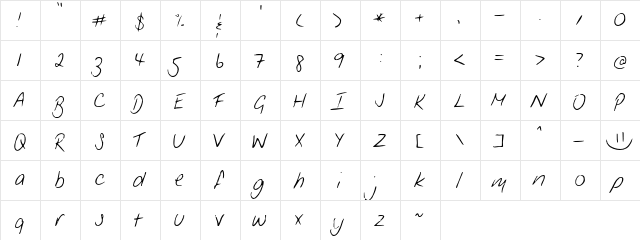
FG Jenny Regular
| Foundry | Jenny fonted by Font Garden |
| Designer | Ellinor Rapp |
Design Context for FG Jenny Typeface
FG Jenny is a composed and adaptable typeface that performs quietly and consistently across a wide range of design contexts.